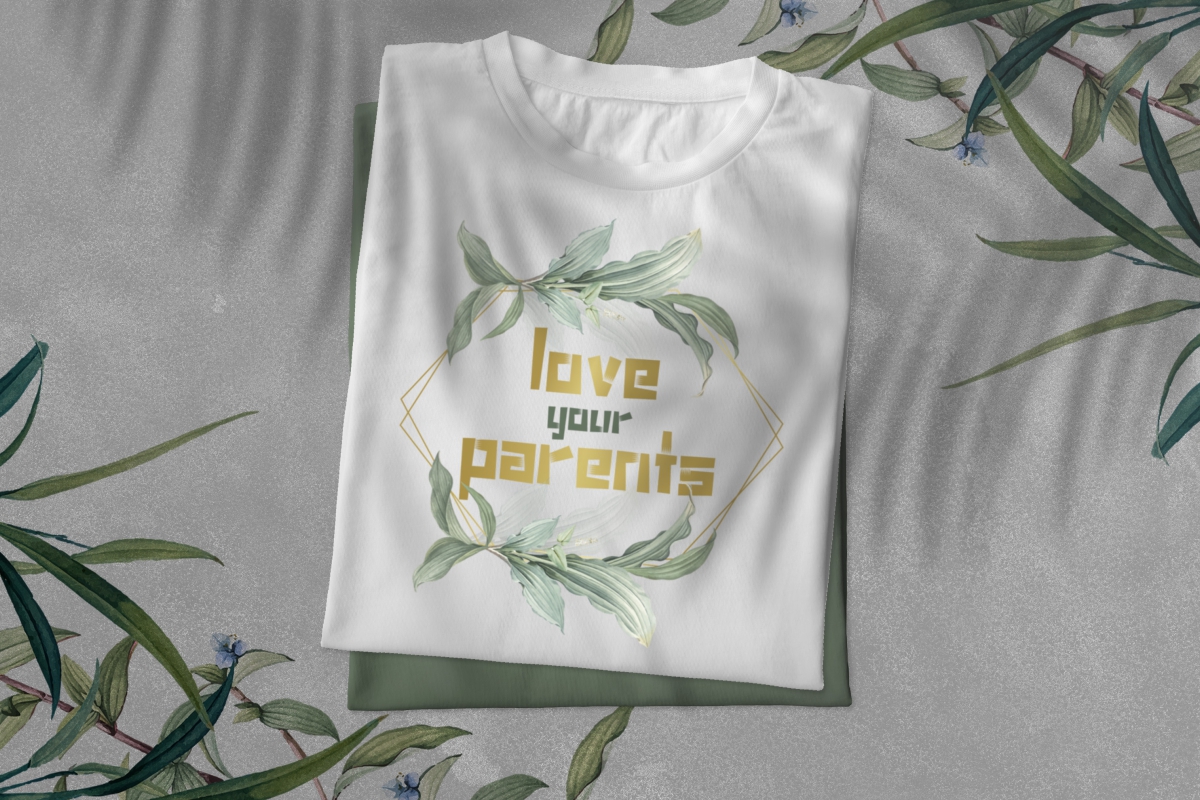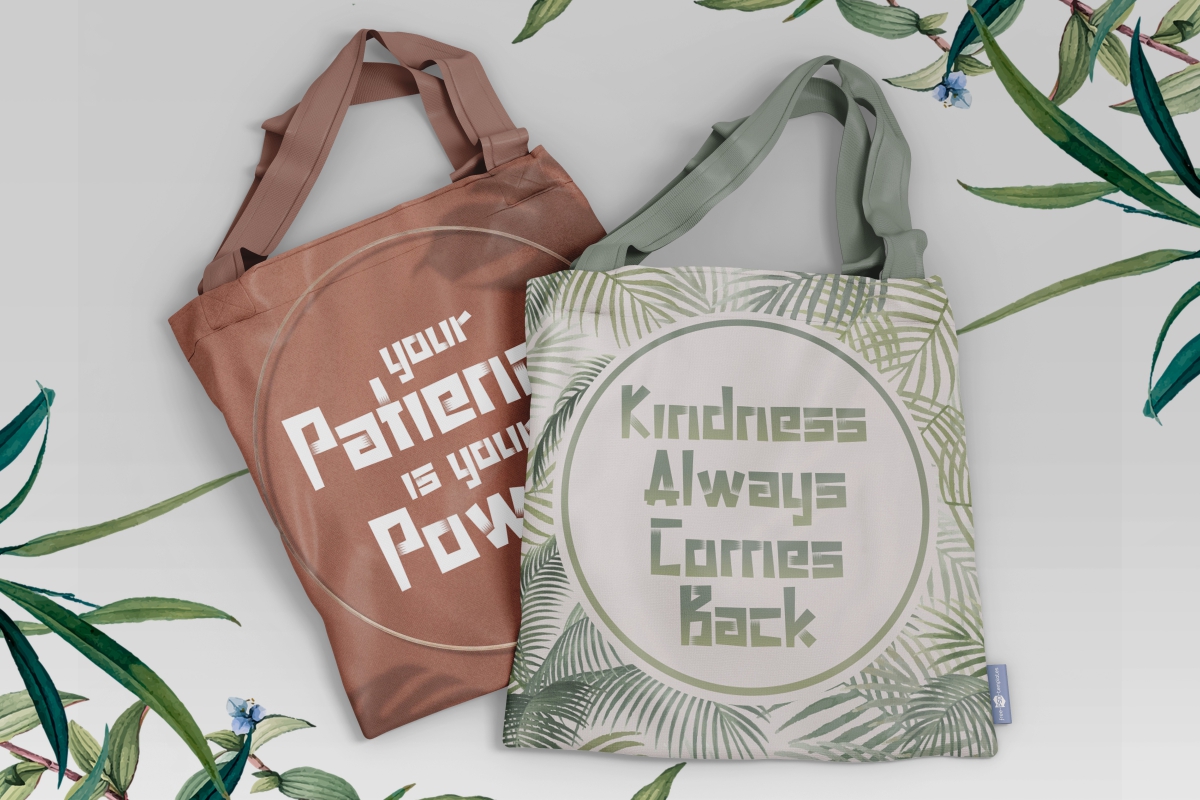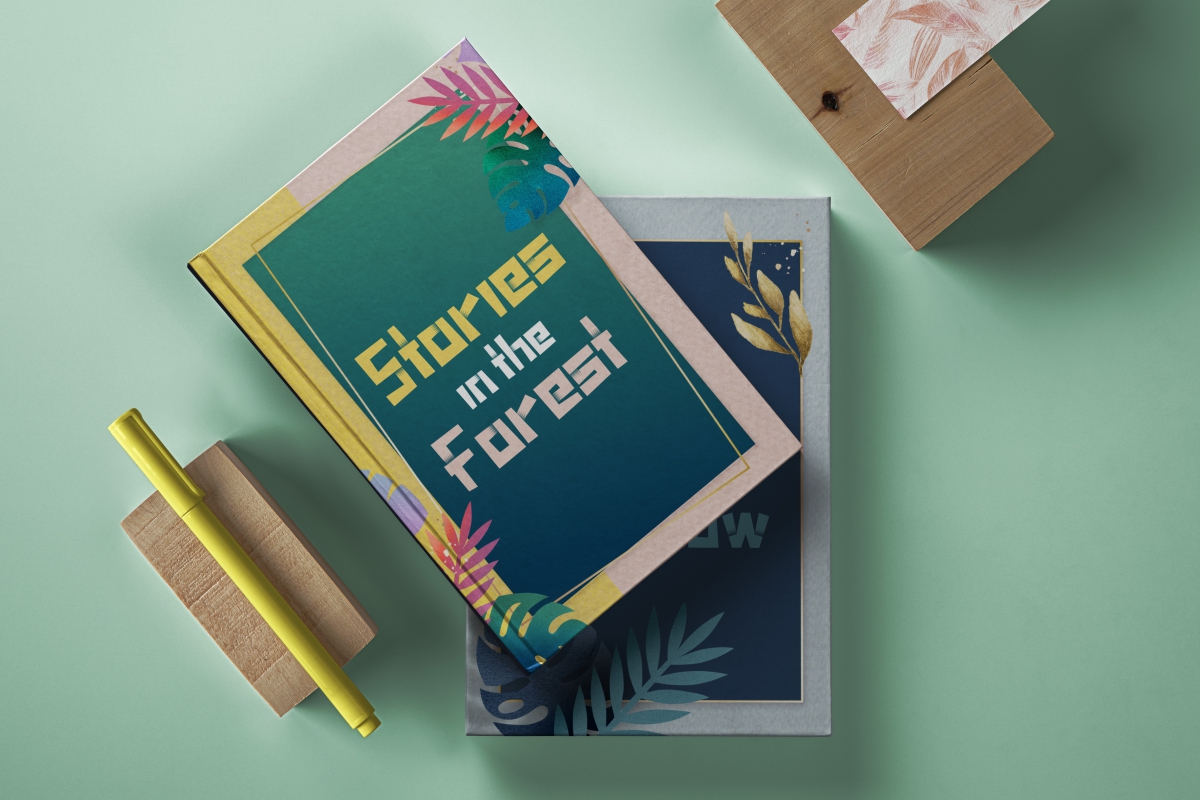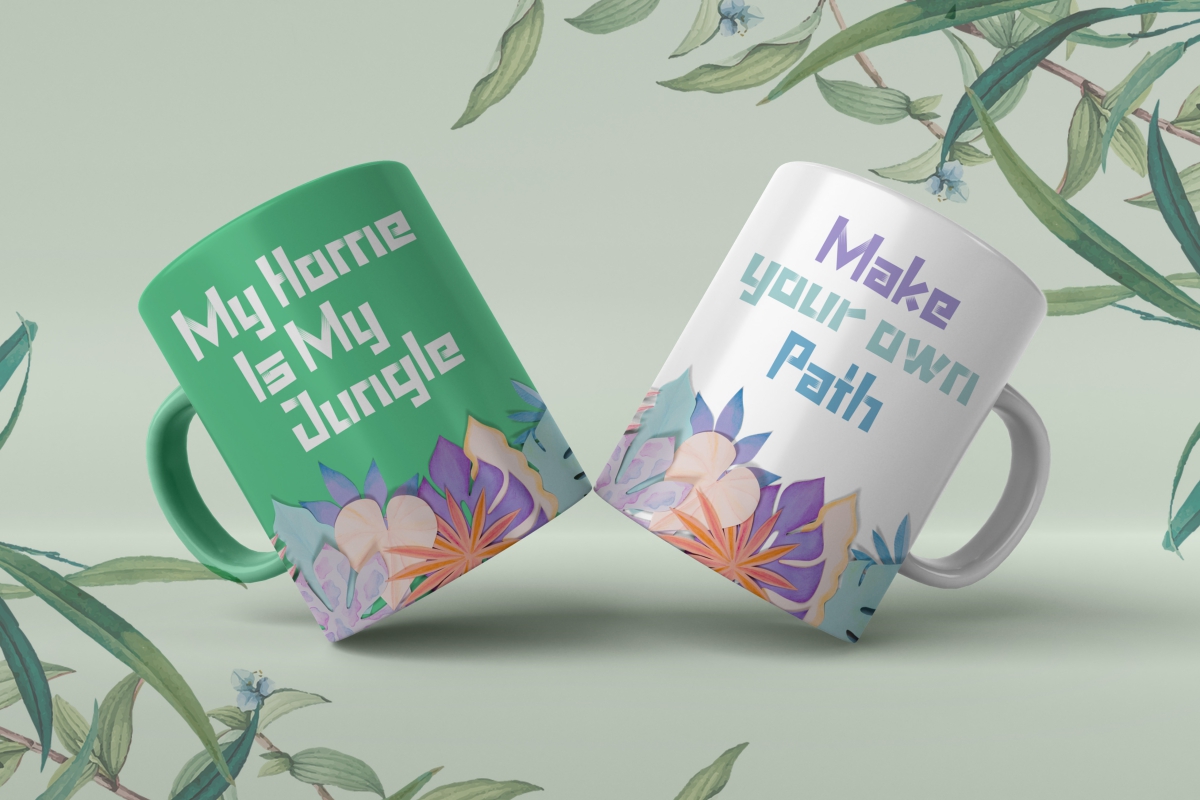
Jungle Tribe Font
Jungle Tribe Font is a unique cartoon display font inspired by the zoo and textured is applied to the font as the special effect to gives this font looks more authentic, ethnic and fun! created especially for specific themes such as cultural, children, festival, jungle, vacation and many more! This font is suitable for clothing design, handcrafts, movie, title or just writing on the background